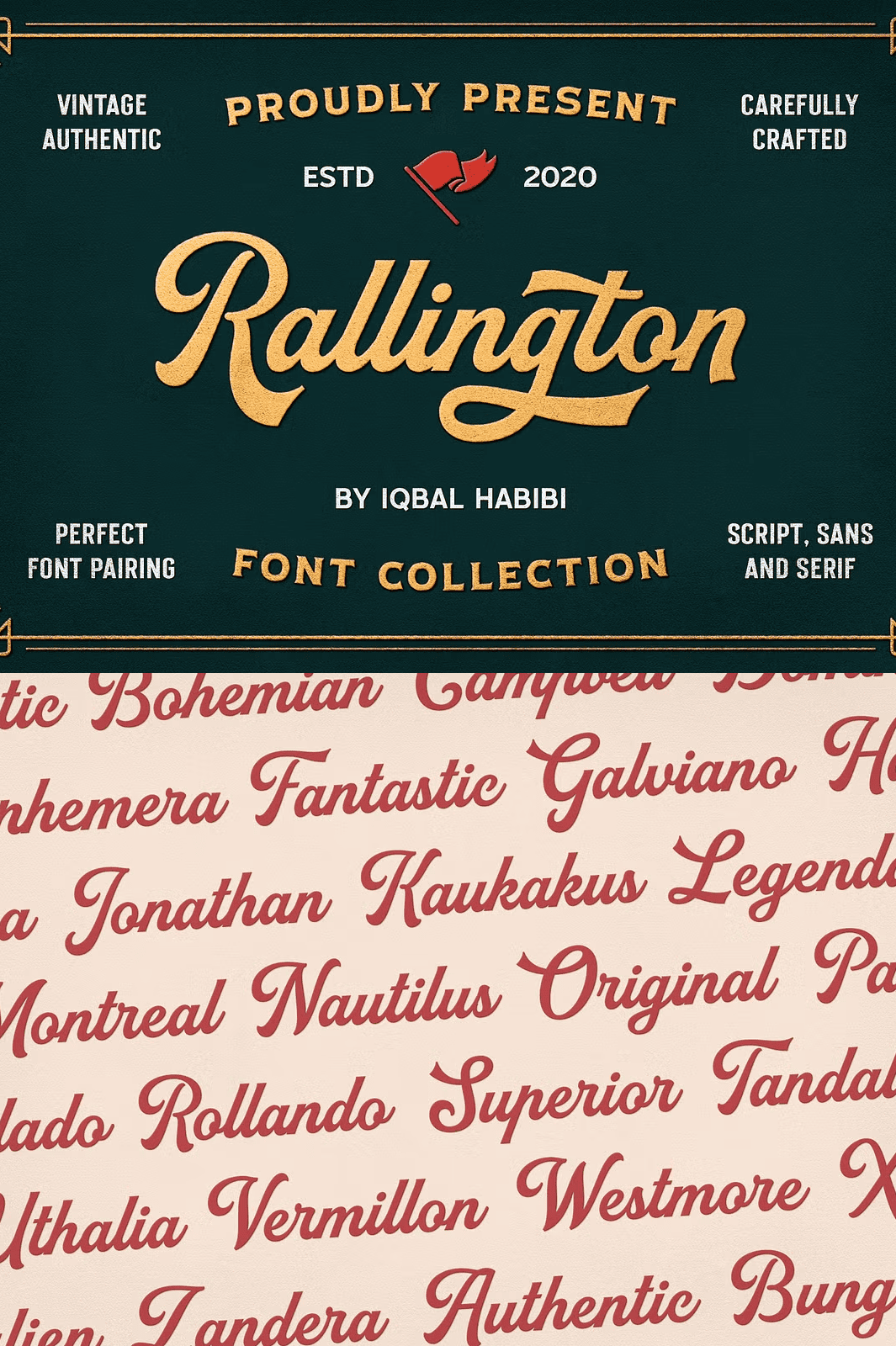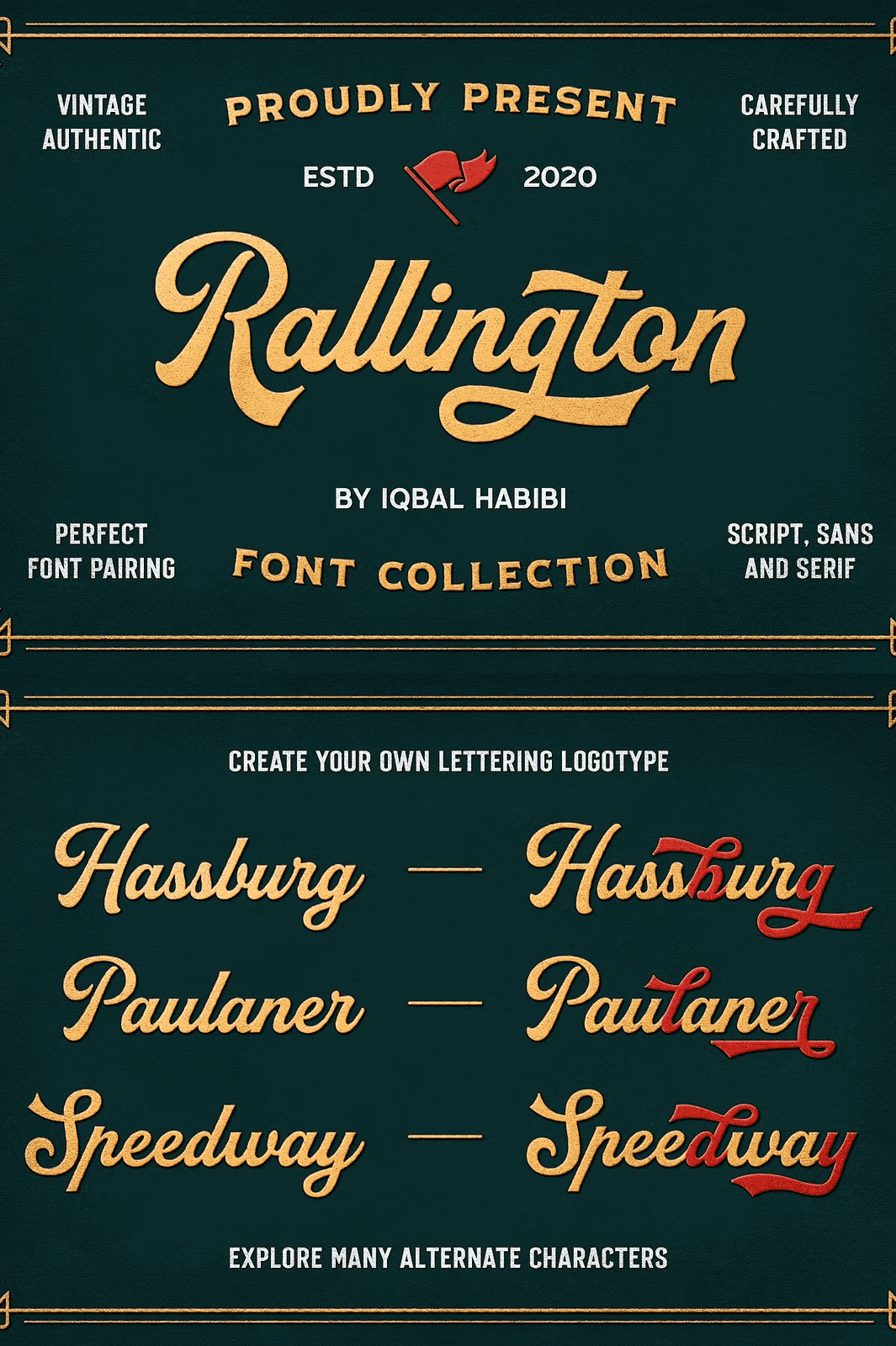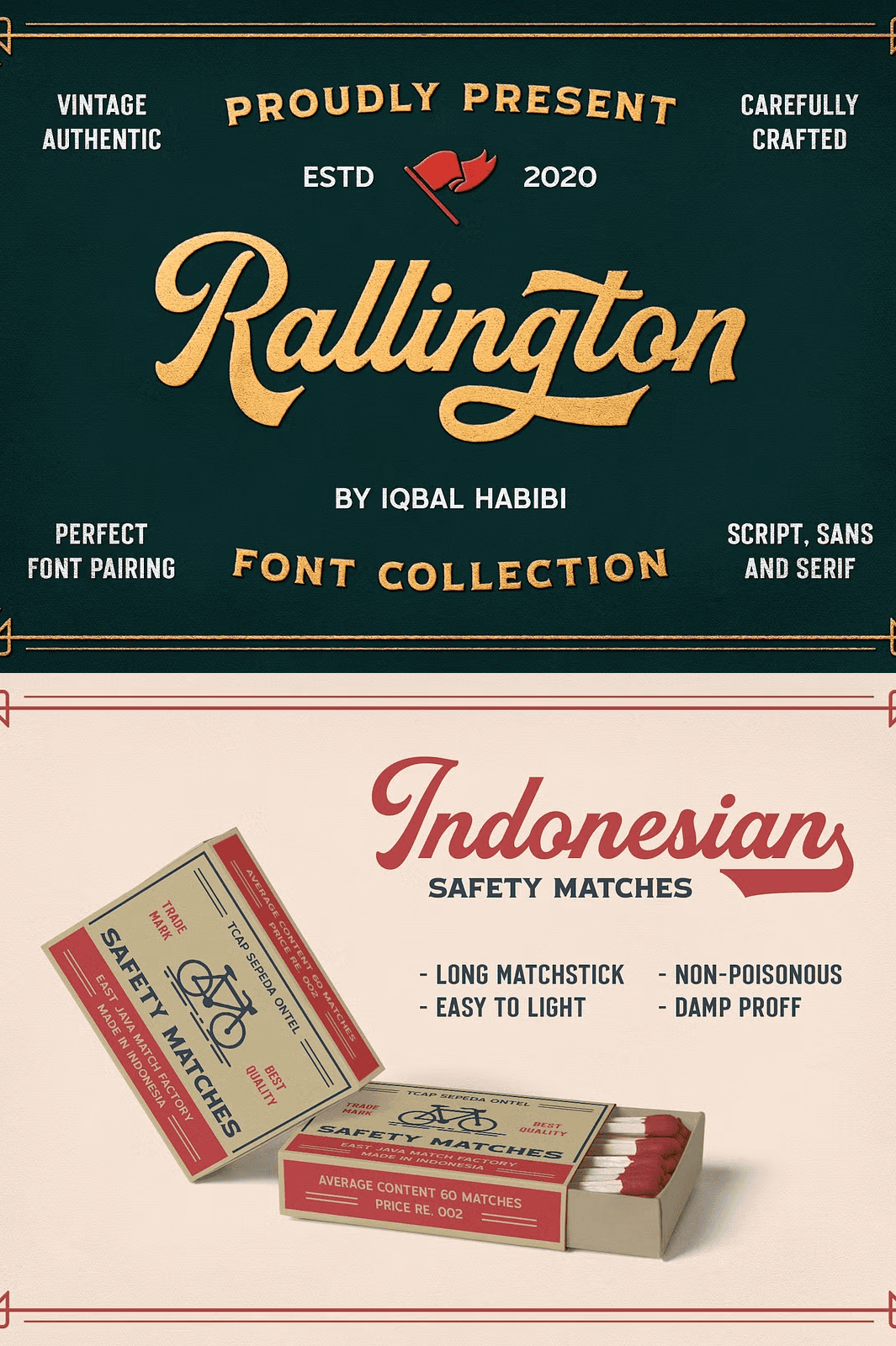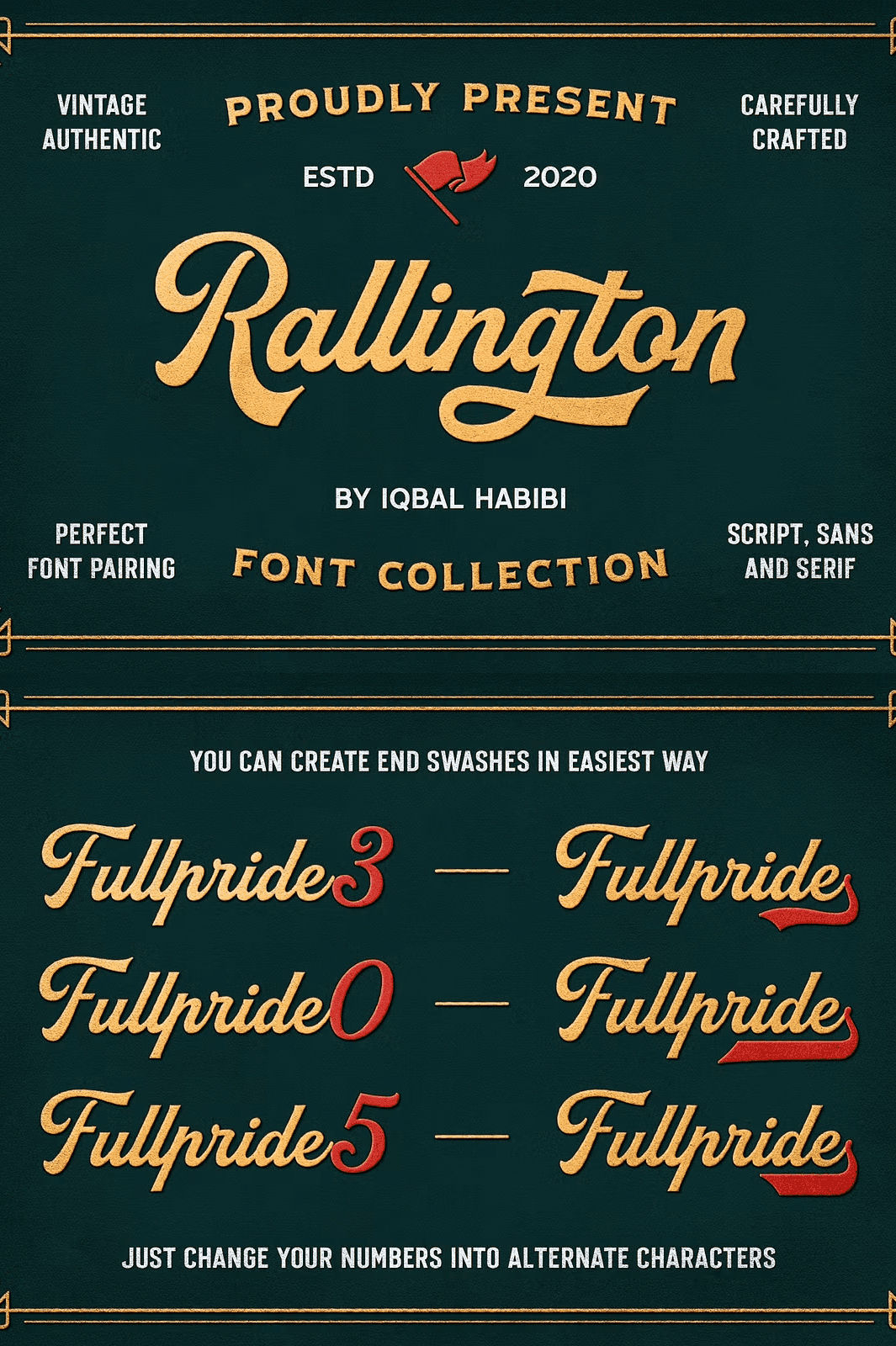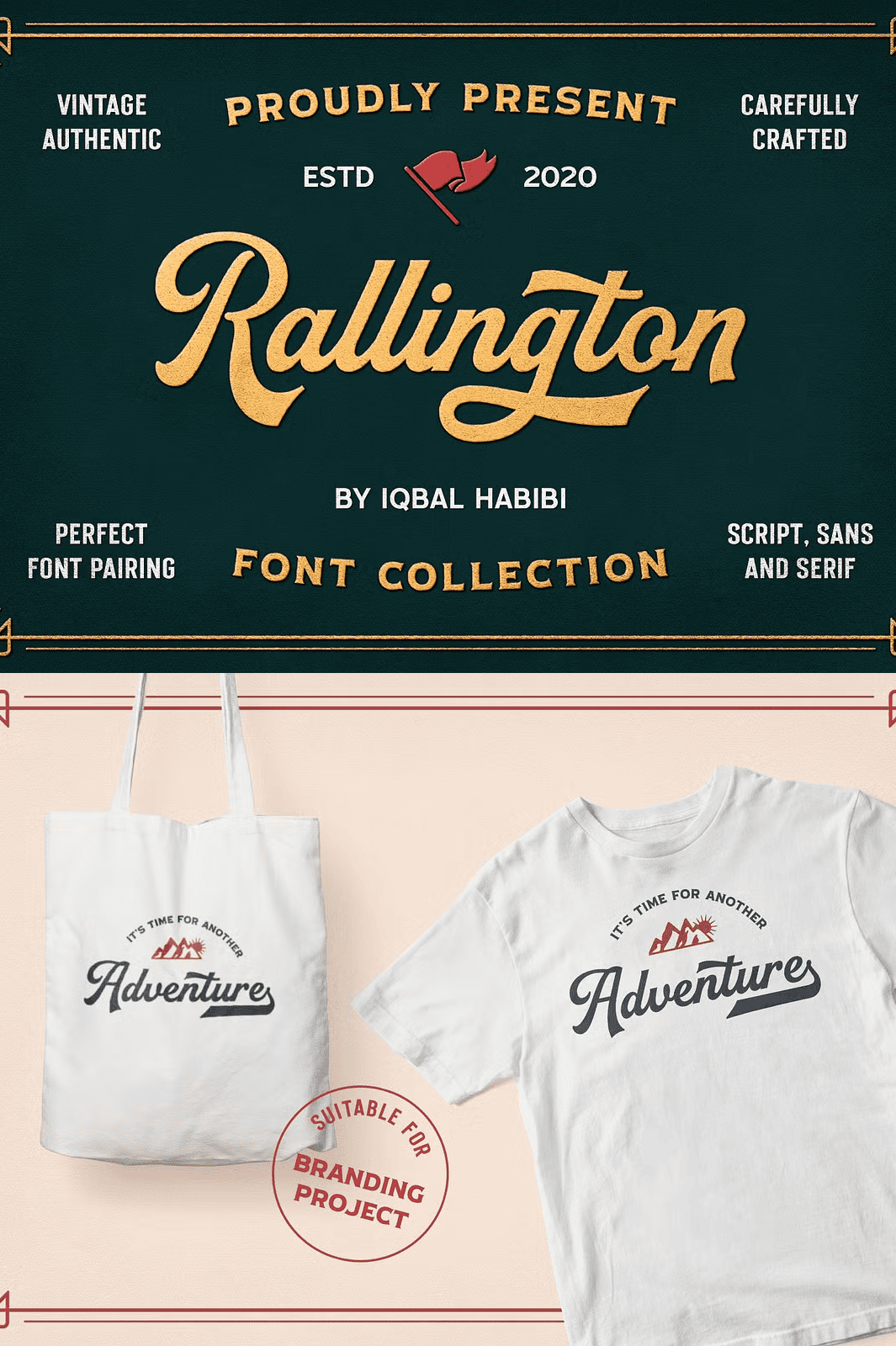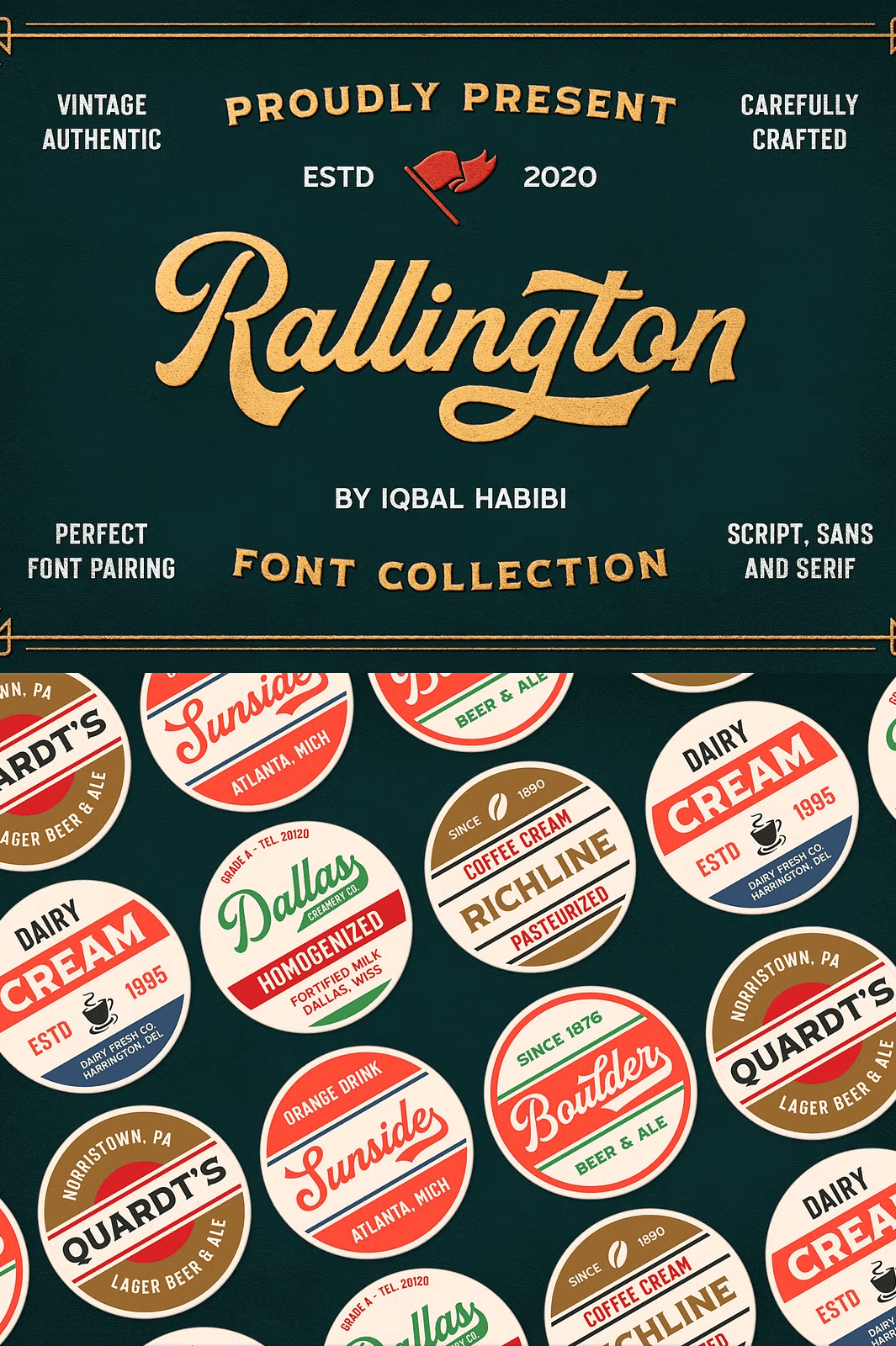
Rallington – Font Collection
Unleash the Charm of Retro Typography with 4 Distinct Fonts
Rallington Font Collection captures the spirit of classic vintage lettering inspired by timeless beer labels, retro print advertisements, matchbox designs, and old-world signage. This versatile font set delivers authentic historical aesthetics with modern precision, giving your projects an instant sense of nostalgia, character, and visual impact. With **four unique fonts**, each crafted with distinct personality and rhythm, you gain limitless options for layering, pairing, and composing visually striking designs.
Whether you’re building a vintage brand identity, designing a custom label for craft beer, creating a retro-style t-shirt, or developing bold signage for a café or shop, Rallington delivers the authenticity and flair that modern fonts often lack.
Advanced Features That Empower Your Creative Vision
Rallington Font Collection goes beyond simple letterforms with professional-grade typographic tools built for serious designers:
– **Stylish alternates and ligatures** to create seamless, visually rich text compositions.
– **Full numeric sets, punctuation, and special symbols** for complete typographic control.
– **Multilingual character support** including extended Latin characters such as ÁÂÄÀÅÃÆÇÐÉÊËÈÍÎÏÌÑÓÔÖÒØÕŒÚÛÜÙẀŴẄẂÝŶŸỲŹŻŽ, and their lowercase variants.
This level of typographic richness ensures your content stays consistent and professional across multiple languages and design contexts ideal for international projects and creative branding.
Maximum Flexibility with Professional-Grade Compatibility
Endless Creative Applications for Modern and Retro Designs
Rallington Font Collection is engineered to shine across a broad range of applications—here’s where it truly excels:
– **Label and packaging design** for craft beverages, handmade goods, and artisanal products.
– **Vintage branding and logo creation** with retro authenticity.
– **T-shirt and apparel printing** that stands out on the street and online.
– **Signage for cafes, boutiques, bars, and retro events.**
– **Print and digital advertisements** with nostalgic aesthetic appeal.
– **Creative editorial design** in magazines, zines, and promotional brochures.
Each font in the collection can stand alone or be combined with others to create visually dynamic and balanced compositions giving you total creative freedom.
Elevate your next creative project with authentic vintage lettering that tells a story. Rallington Font Collection blends historical inspiration with modern digital craftsmanship giving you a powerful toolset for expressive typography.